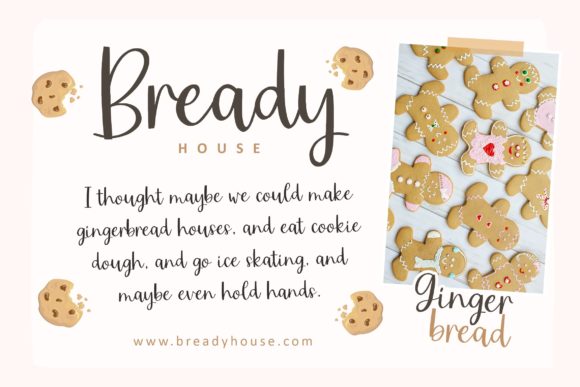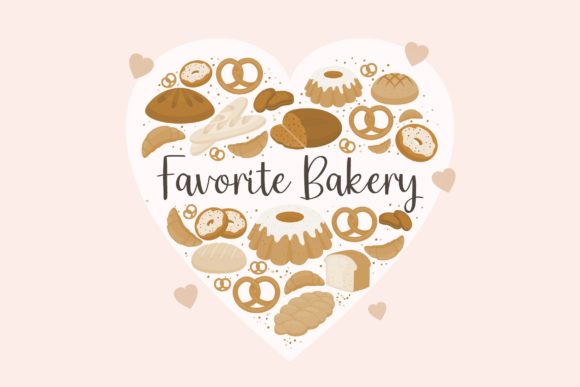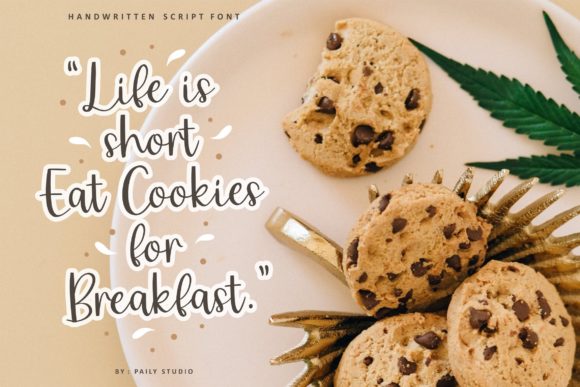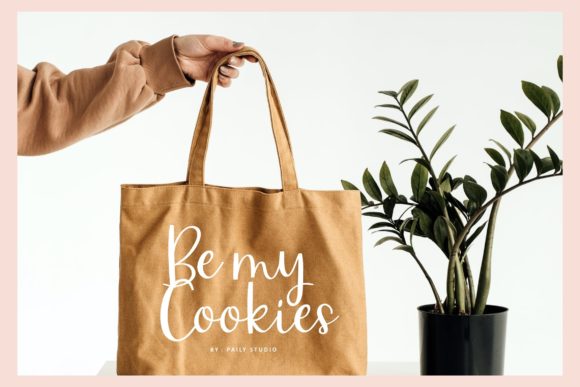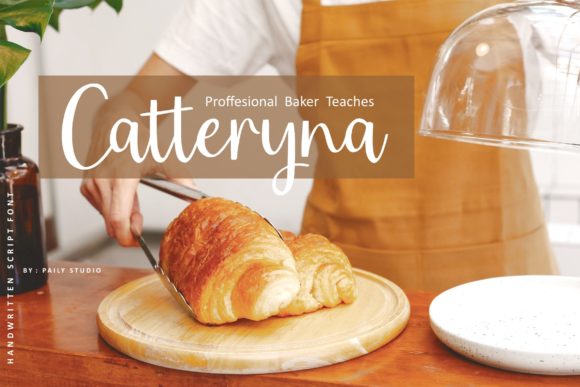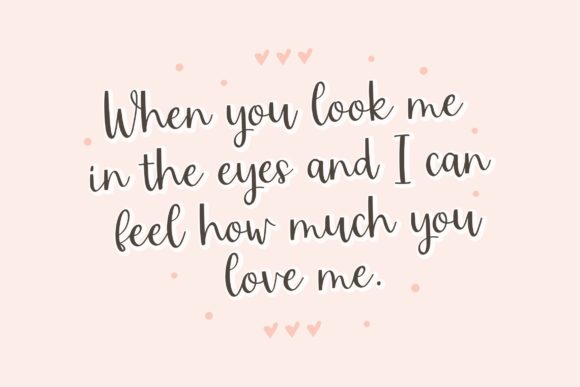
Introduction to Mister Cookies Font
Mister Cookies is a chic, refined script font that emanates sophistication and elegance.
Its stylish alternates and ligatures make this font the perfect match for any project .